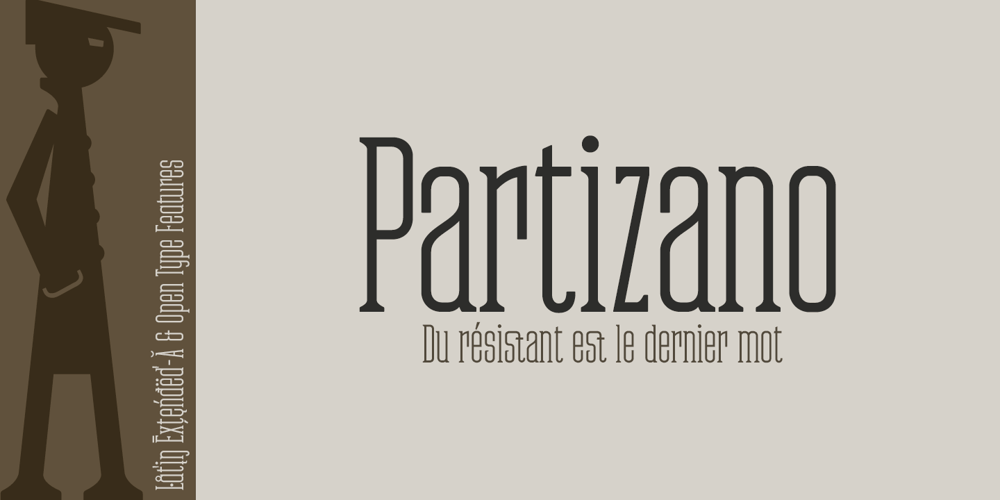
Partizano Serif Font Family was designed by Fernando Haro and published by deFharo. Partizano Serif contains 1 styles and family package options. Geometric typography with serif, extra condensed retro look and very elegant for use in publications, graphic design and advertising where you need an exclusive typography with great horizontal space saving for headlines and paragraph texts. It has a complete set of capital letters and numbers and monetary symbols in small caps, also alternative letters such as the ‘A’ capital letter or the lowercase ‘a’ type alpha. Use the following keys to write the bitcoin symbol and the partisan icon: b #, a #